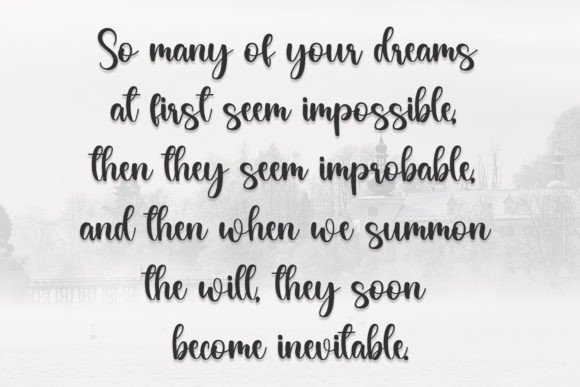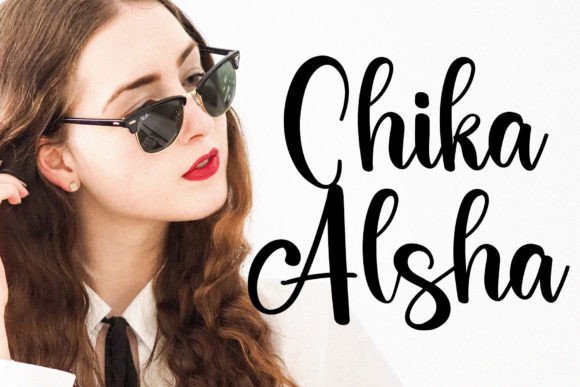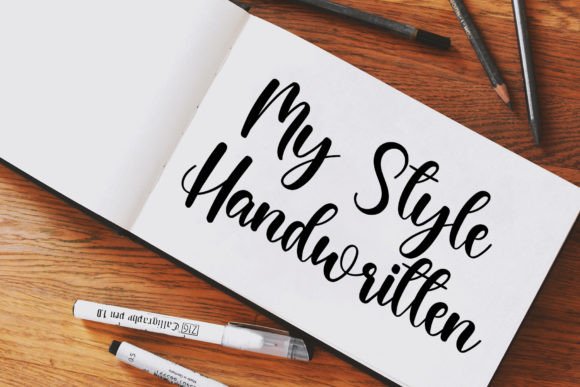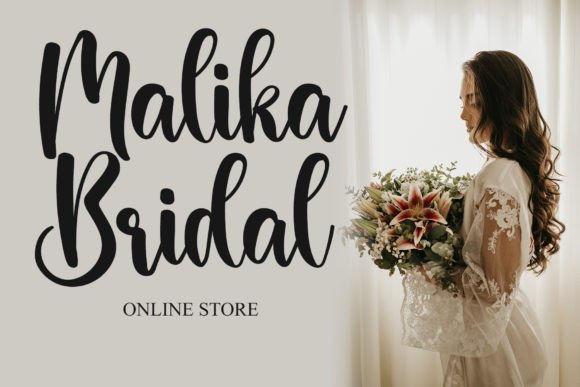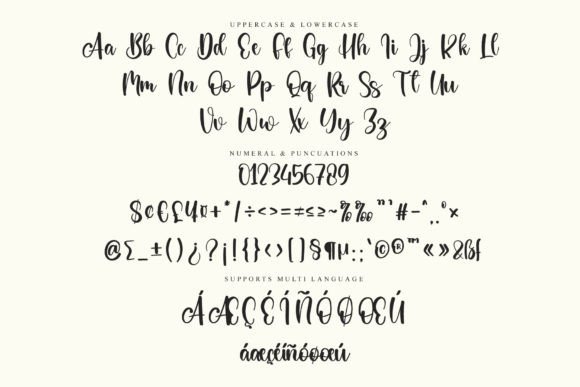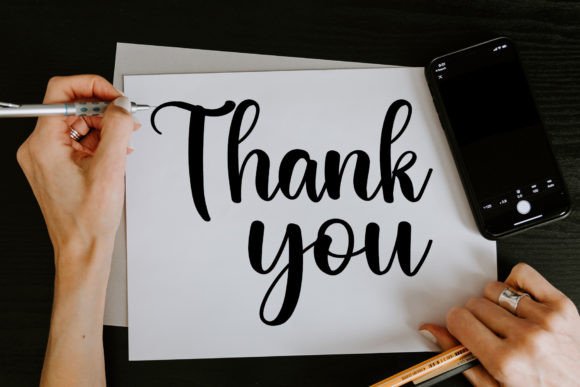
Introduction to Doubter Font Font
Fonts play a crucial role in design, and the Doubter Font font is a typeface that brings both character and versatility to any project. Whether you’re working on a branding project, a website, or a print design, the Doubter Font font offers a unique style that can elevate your work.
Doubter is a sweet and cursive handwritten font.
This gentle font will look gorgeous on a variety of design ideas It will add a joyful and romantic touch to each of your projects.
Key Features of Doubter Font Font
Why Choose Doubter Font Font?
The Doubter Font font is more than just a typeface – it’s a design tool that helps you communicate your message with style and clarity. Its unique character set and versatile design make it suitable for a wide range of applications, from elegant invitations to bold headlines.
With its carefully crafted letterforms and balanced proportions, the Doubter Font font ensures readability and visual appeal across all mediums.
What makes Doubter Font font special?
The Doubter Font font stands out with its unique design, exceptional readability, and versatility across various design applications.